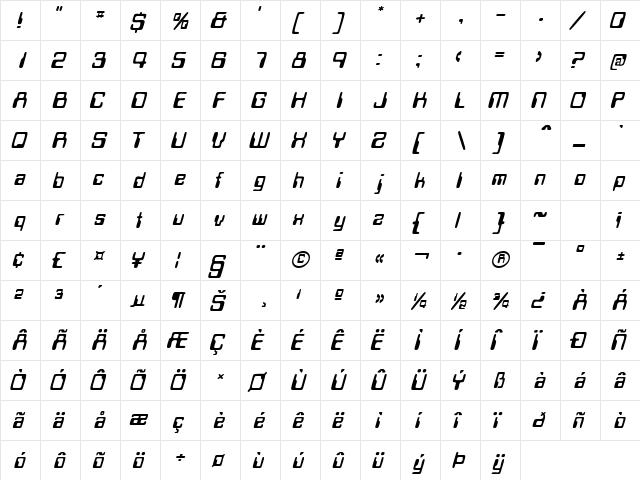
MagCardSSK Italic
Design Context for MagCardSSK Typeface
MagCardSSK is a composed and adaptable typeface that performs quietly and consistently across a wide range of design contexts. The dynamic lean of this cut emphasises speed and emphasis in any layout.
Pro Tip: Use MagCardSSK for emphasis, pull quotes, and subheadings where its slanted energy can add rhythm to the layout.